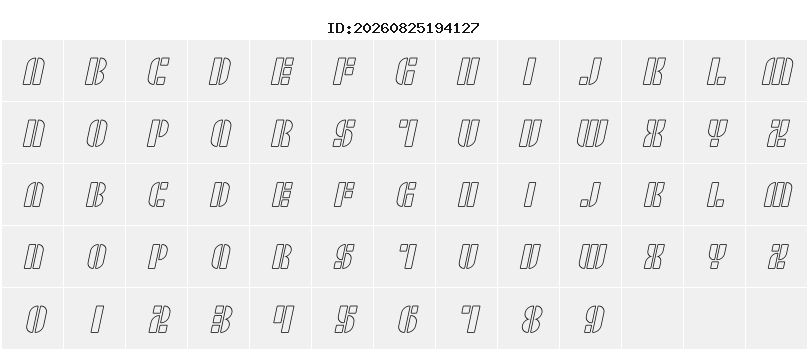
• Font Name: SF RetroSplice SC Outline
• Designer: ShyFonts Type Foundry
SF RetroSplice SC Outline.ttf is a modern, elegant sans-serif font designed for ultimate readability and visual harmony. Perfect for branding, headlines, web design, and print materials.